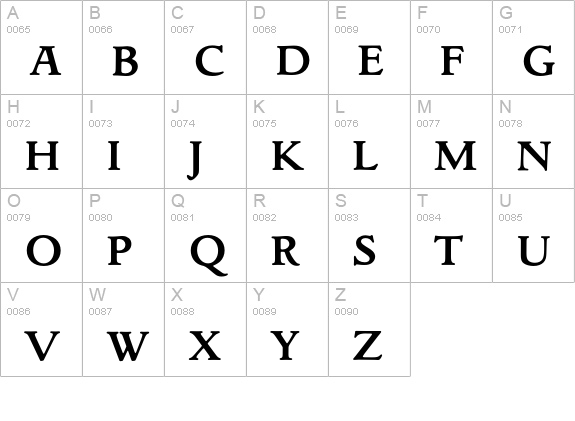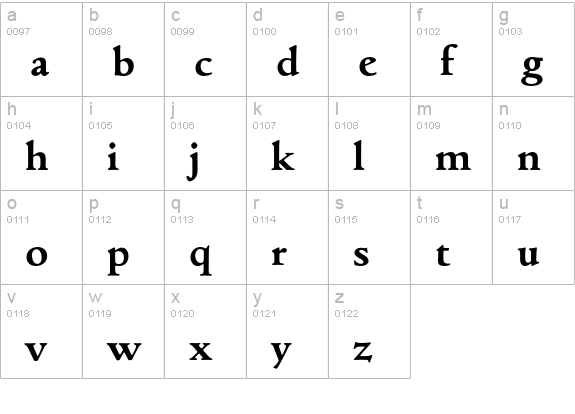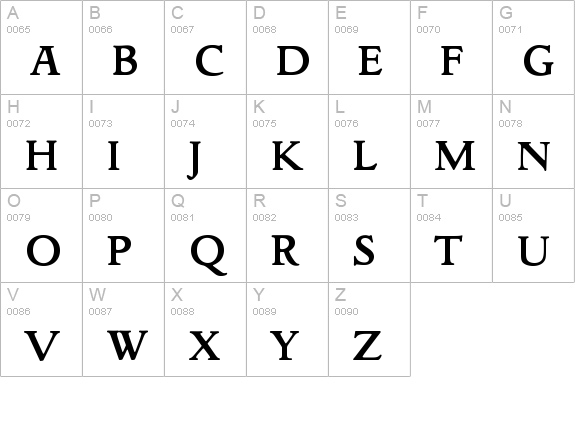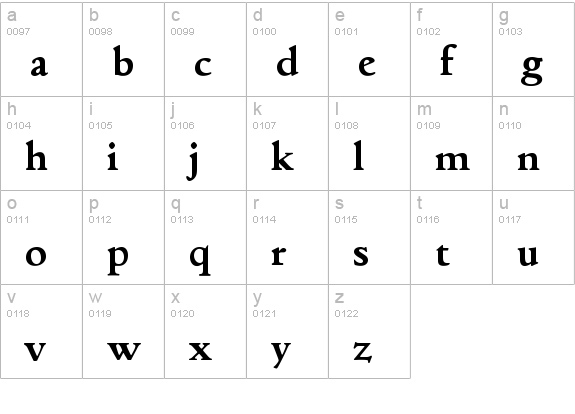
Goudita-DemiBold is a sub-bold, structured variant in the Goudita typeface family \xE2\x80\x94 well suited to sub-headlines and emphasised passages.
Goudita-DemiBold is a stunning and versatile font that exudes elegance and sophistication. Its bold and eye-catching design makes it perfect for a wide range of creative projects, from branding to editorial design. The strong lines and distinctive curves of Goudita-DemiBold add a modern touch to any text, making it stand out in both print and digital formats. What's even better is that Goudita-DemiBold is available for free download at FontsMarket.com. This means that you can easily access this beautiful font and use it in your projects without any cost. Whether you're a designer looking to elevate your work or a business owner seeking a fresh look for your branding, Goudita-DemiBold is the perfect choice. Download it today and add a touch of sophistication to your designs.